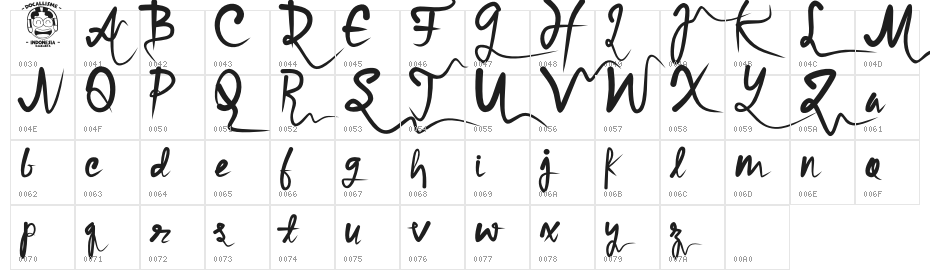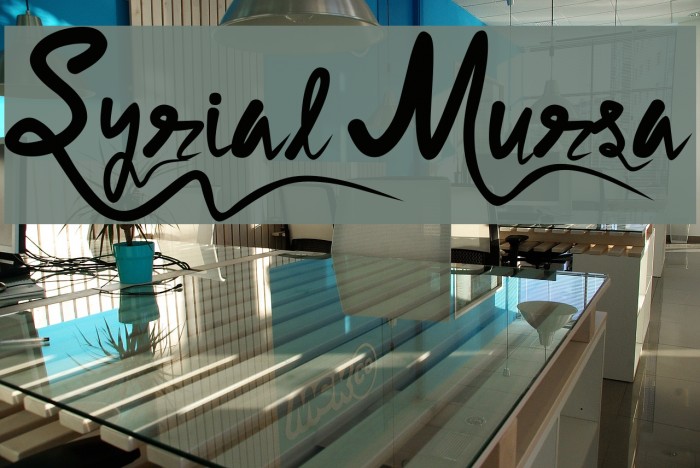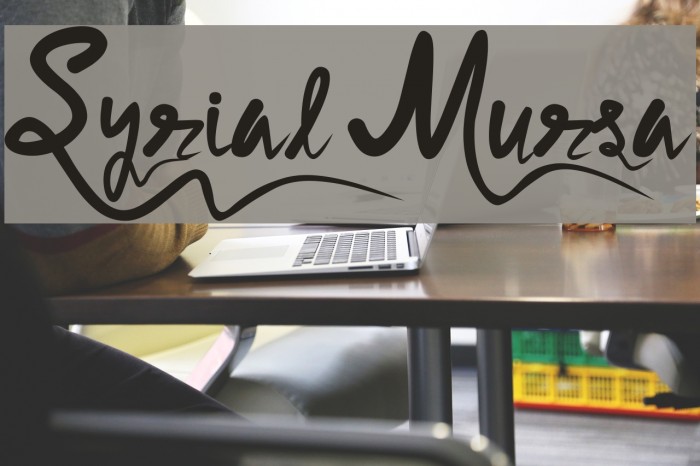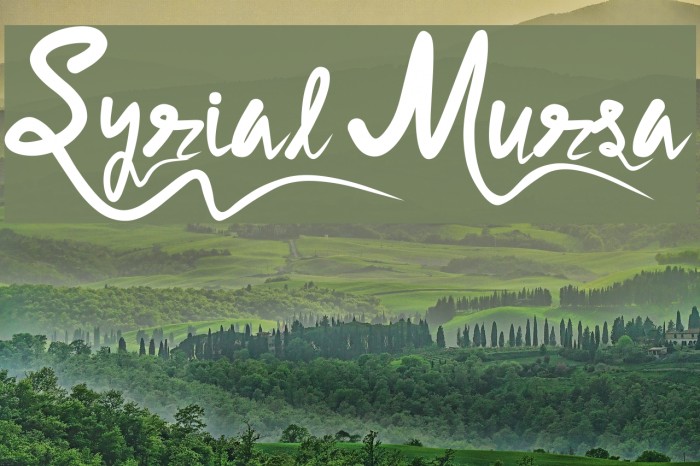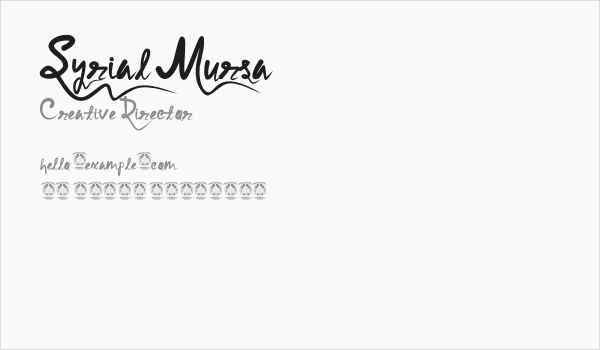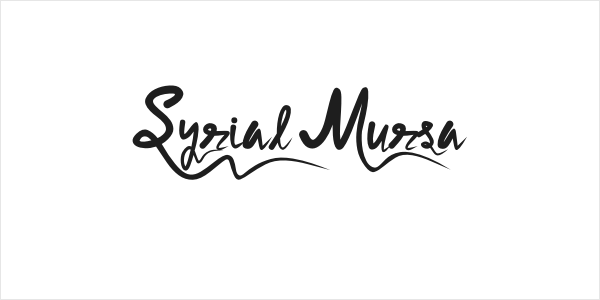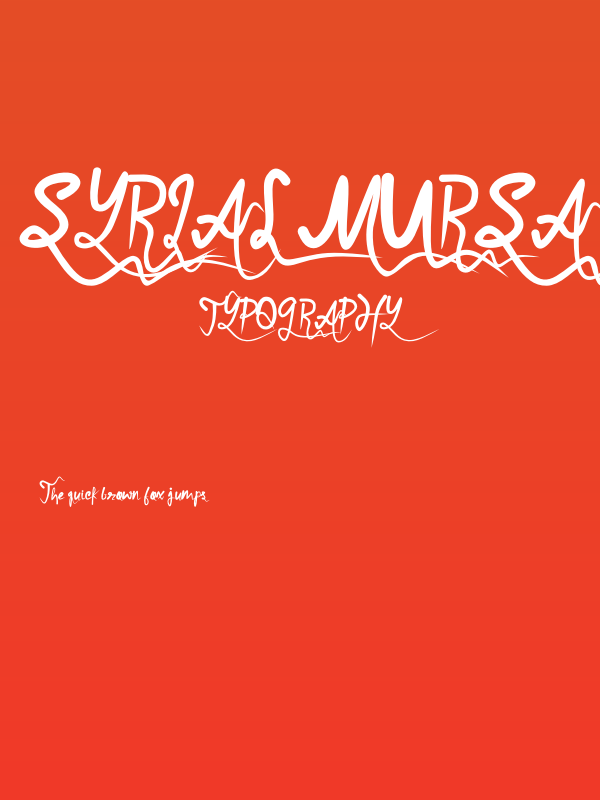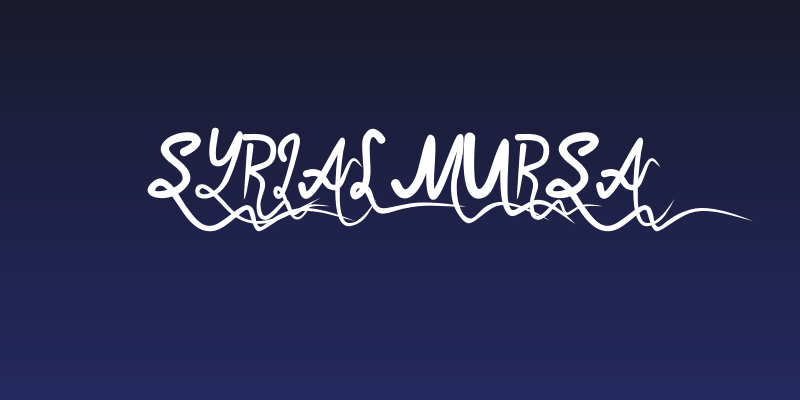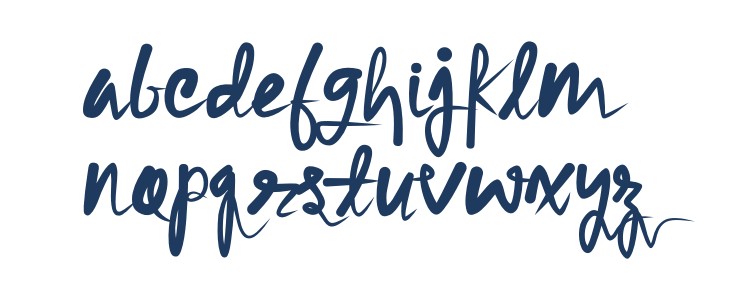
Syrial Mursa Font
Syrial Mursa Description
This font features a dynamic and expressive script style, characterized by its flowing, interconnected letterforms. The uppercase letters exhibit a dramatic flair with elongated strokes and intricate loops, creating a sense of movement and elegance. The lowercase letters maintain a consistent rhythm, with smooth curves and a slightly informal touch. The overall design is bold and artistic, making it suitable for creative and eye-catching projects. The font's unique style is complemented by a moderate contrast in stroke thickness, adding depth and visual interest. Its decorative nature makes it ideal for headlines, logos, and branding that require a personal and artistic touch.
| Proposed Projects | Ideal for creative projects such as branding, logos, headlines, invitations, and artistic designs. |